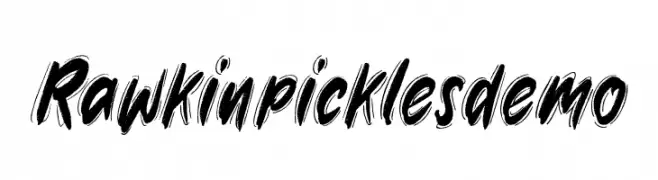
( Carly Fisher )
A sleek, minimalist font with thin, elongated letterforms.
( Leonard Posavec - LeoSupply.co - Leonard Posavec - leosupply.co )
A bold, hand-painted italic font with dynamic, brush-like strokes.
( Bionic Type - fonts.type4.com/ )
A playful, bold font with a liquid-like, organic appearance.
A bold, decorative font with floral motifs encasing each uppercase letter.
( Fonts by The Docallisme )
A playful, bold font with scalloped edges and a bubbly appearance.
A playful, hand-drawn font with bold, rounded characters and a whimsical style.
A cursive, handwritten font with a smooth and flowing style.
A bold, brush-style font with dynamic, expressive strokes.
A bold, brush-style font with dynamic, energetic strokes.
A playful, handwritten font with rounded edges and a casual, friendly style.